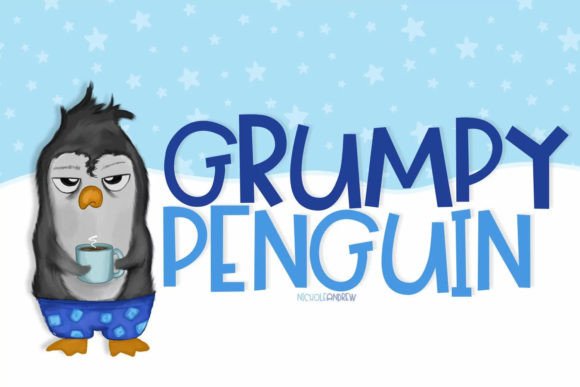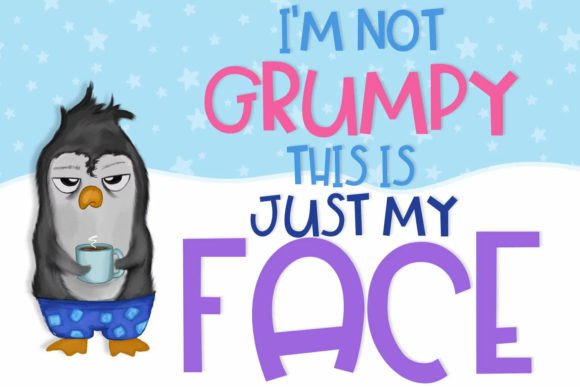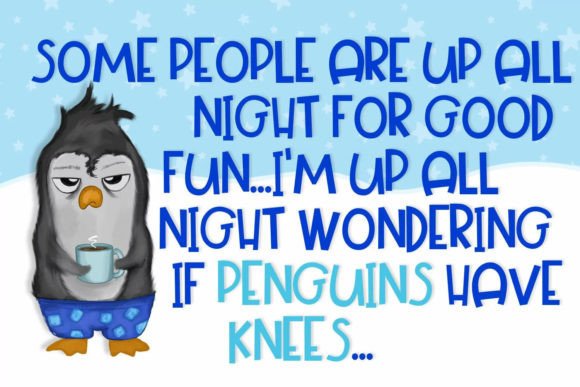
Grumpy Penguin Font
About Grumpy Penguin Font
Grumpy Penguin is a blocky handwritten font with a distinct look and feel, adding a unique touch to your creative projects. Designed for use with cutting machines, Grumpy Penguin is perfect for making your next project adorable. Whether you’re creating water bottles, stickers, decals, or other crafts, this font adds a playful and distinctive aesthetic.
The blocky and handwritten style of Grumpy Penguin is immediately noticeable, making it an excellent choice for projects that require a quirky and unconventional touch. The font’s design creates a visual appeal that is both distinct and engaging.
Grumpy Penguin’s suitability for use with cutting machines is a practical feature, ensuring a seamless and efficient cutting process. This makes it a reliable choice for various crafting projects, including stickers, decals, and other creations where precision is essential.
Incorporating Grumpy Penguin into your projects is an invitation to infuse them with a unique and adorable aesthetic. This handwritten font becomes a valuable tool, ready to add character and charm to your designs, especially when working with cutting machines.
In summary, Grumpy Penguin is more than just a font; it’s a blocky and handwritten design asset crafted for use with cutting machines. With its distinctive style, Grumpy Penguin stands ready to be the perfect companion for a range of creative endeavors, making your projects both adorable and efficiently crafted.